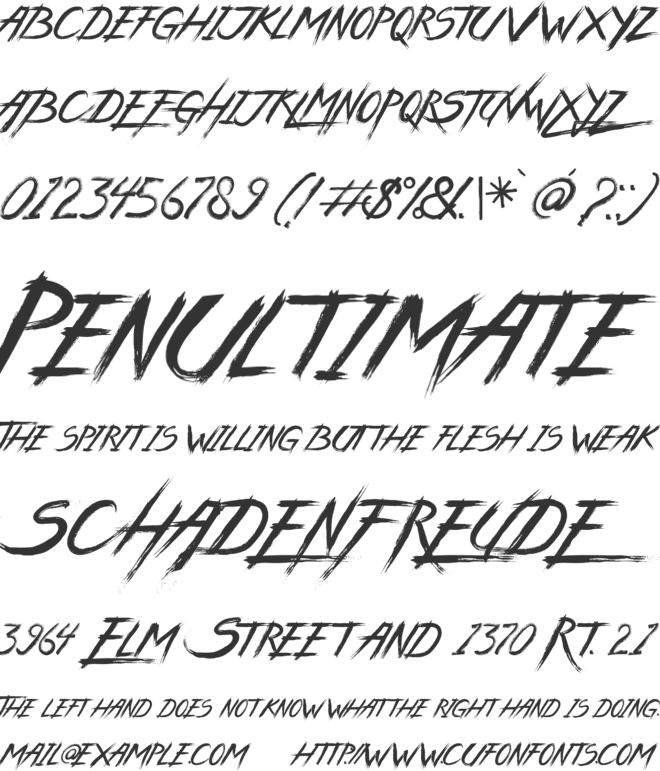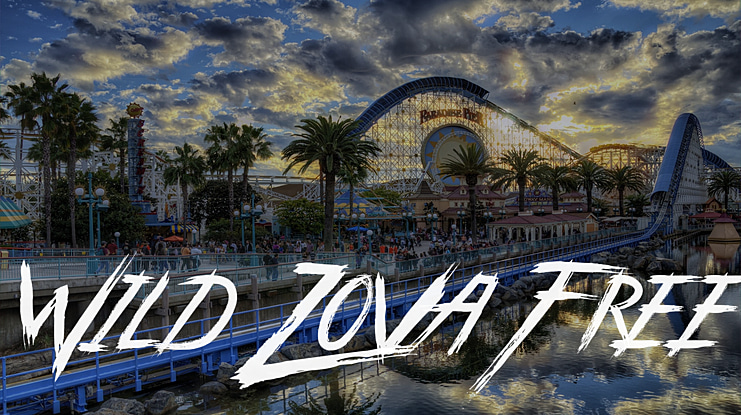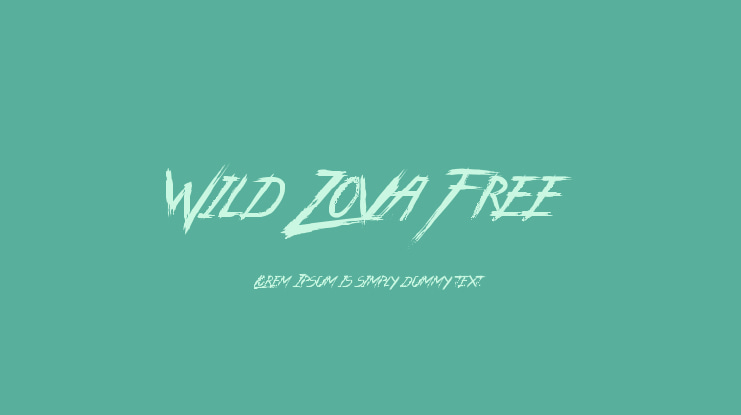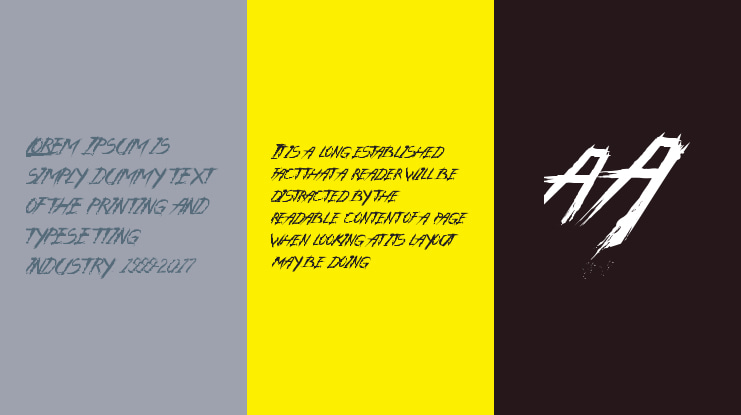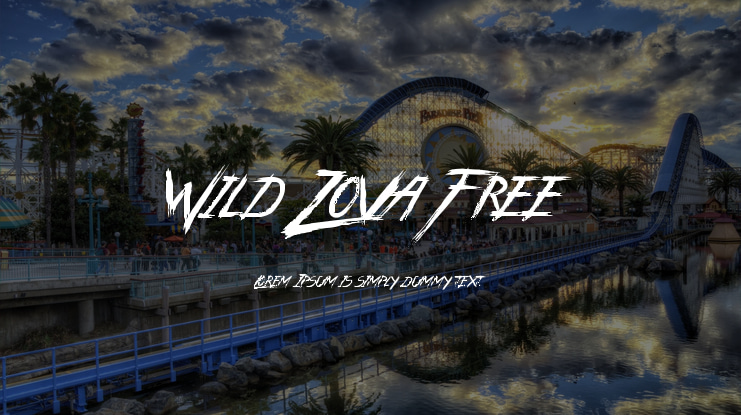
Wild Zova Free Font
Introducing Wild Zova, a brush type family from Feydesign! Wild Zova is a 5 font family that is completely hand drawn. As a sample, we're offering Wild Zova Wide Cap free! It features large and small caps and is perfect for anything messy, grungy and dark.